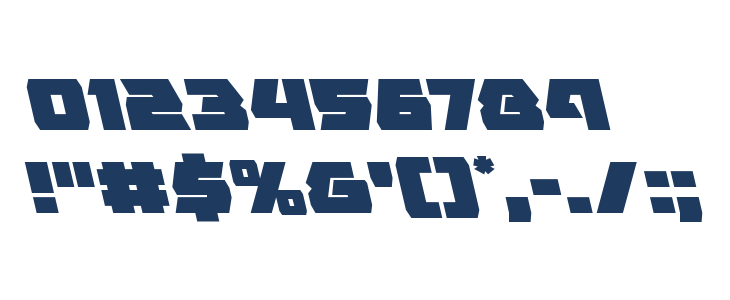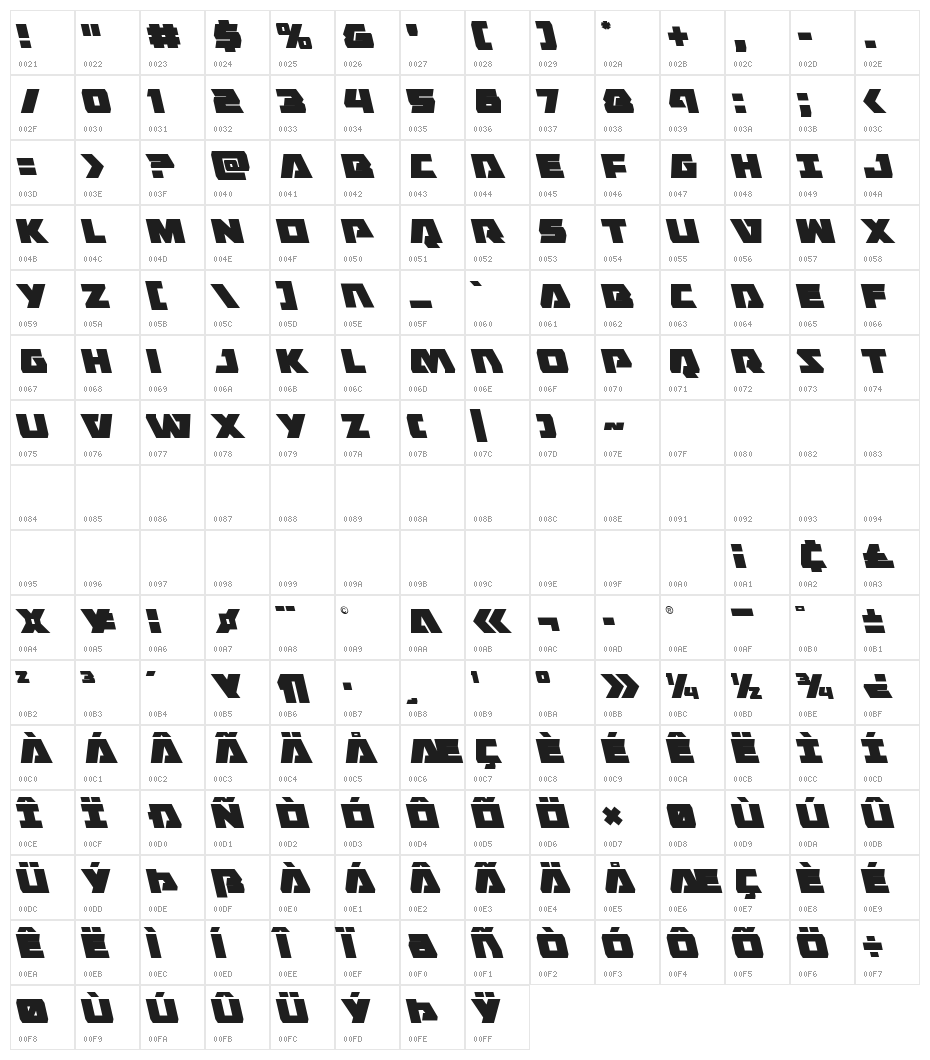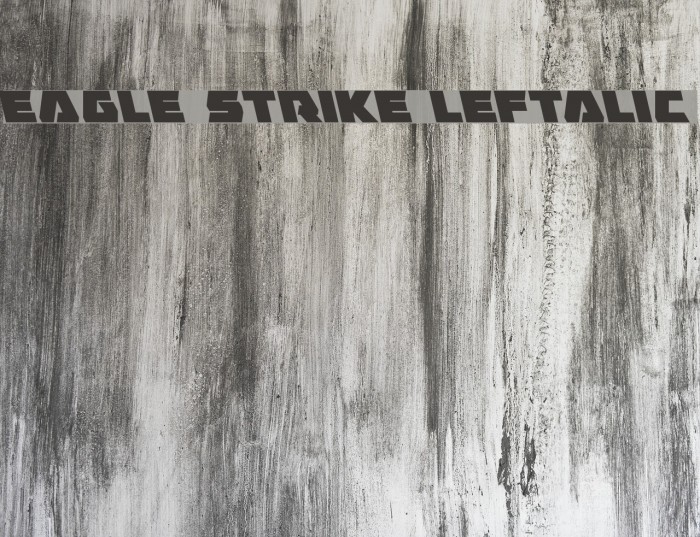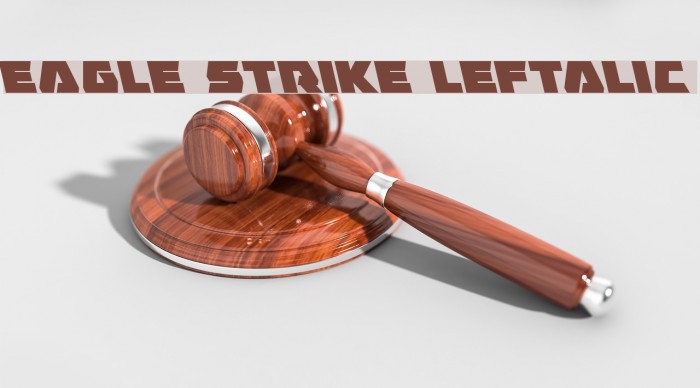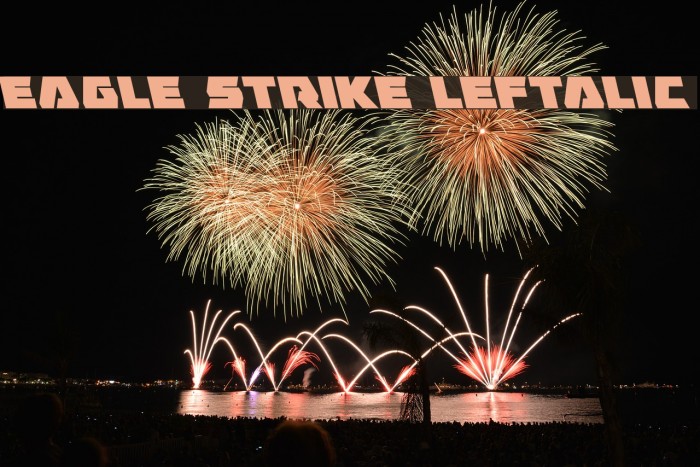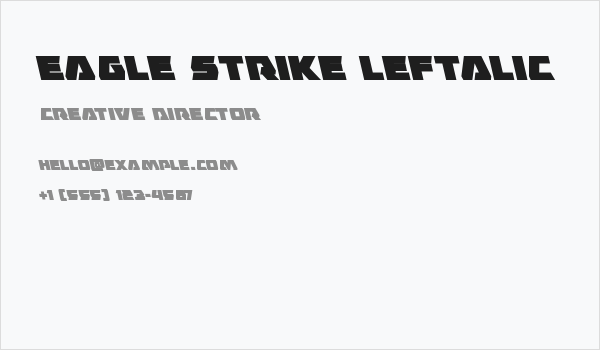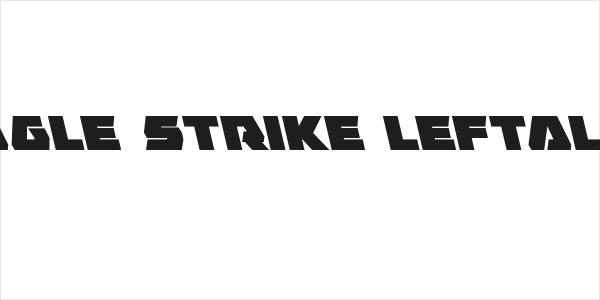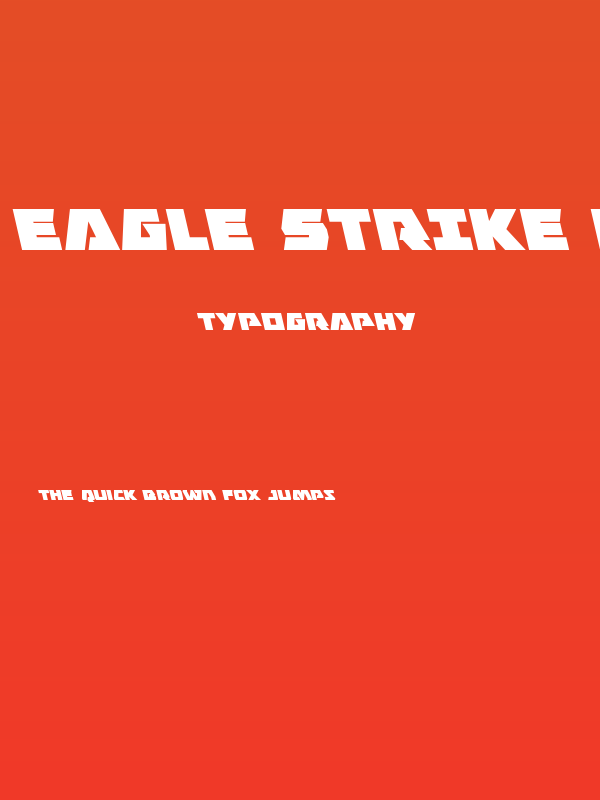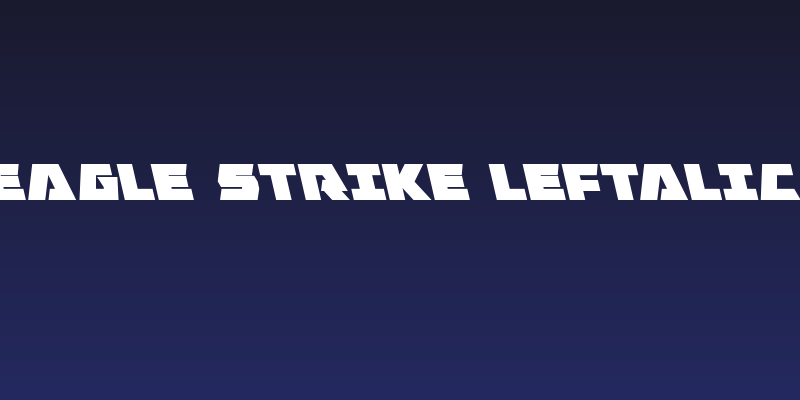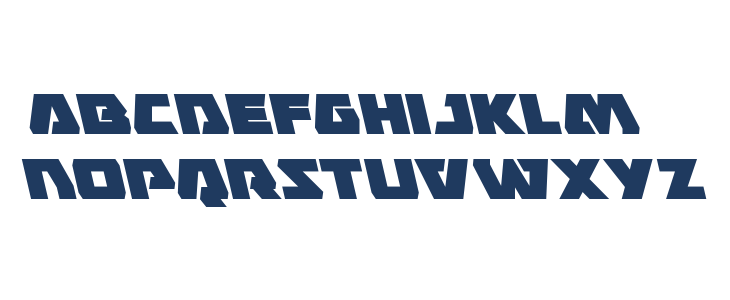
Eagle Strike Leftalic Font
Eagle Strike Leftalic Description
This font features a bold, angular design with a strong geometric influence. The characters are sharply cut with a distinct slant, giving a dynamic and aggressive appearance. The uppercase and lowercase letters maintain a consistent style, with each character exhibiting a unique angular cut that adds to the overall boldness. The numbers and special characters follow the same design principles, ensuring uniformity across all elements. The font's striking appearance makes it ideal for attention-grabbing designs.
| Proposed Projects | Ideal for sports branding, action movie posters, video game titles, and dynamic logo designs. |